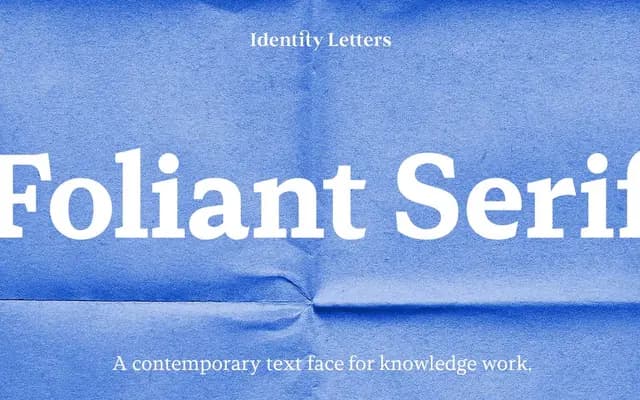
Foliant Serif
A contemporary text serif with flat unbracketed serifs and a slightly tilted axis, designed for sustained reading in both print and digital knowledge work.
Spanning five weights with matching italics, the family is built around body copy legibility, with finely tuned serifs intended to carry the eye smoothly through long passages of text. The glyph set runs to over 900 characters, including small capitals, oldstyle and lining figures, tabular sets, superscripts, subscripts and boxed and circled numerals suited to structured, multi-layered documents. At display sizes, clean curves and crisp details give the heavier weights a composed, erudite quality that pairs with Foliant Sans across the superfamily.
Foliant Serif features a slightly tilted axis with flat, unbracketed and asymmetrically rectangular serifs, placing it outside historical classifications; the foundry describes it as a contemporary design with roots in handwritten Latin letterforms.